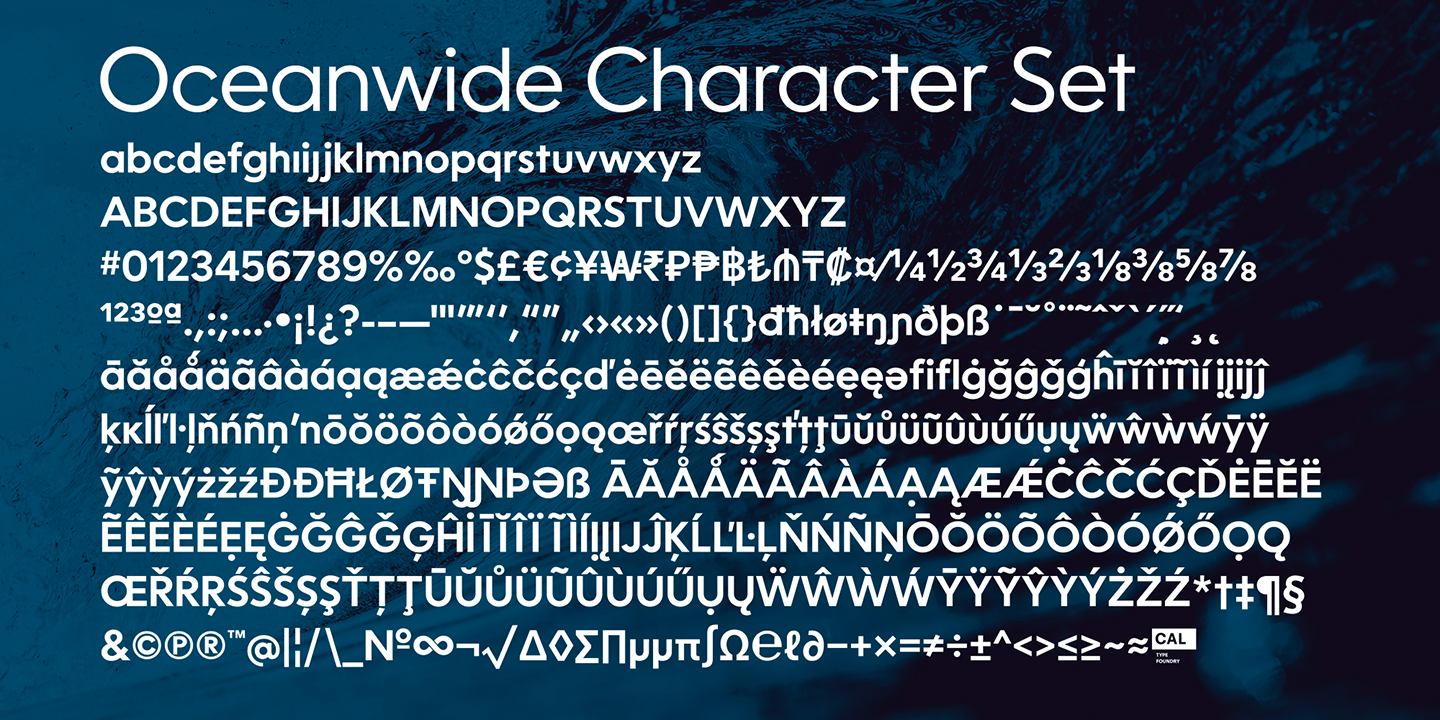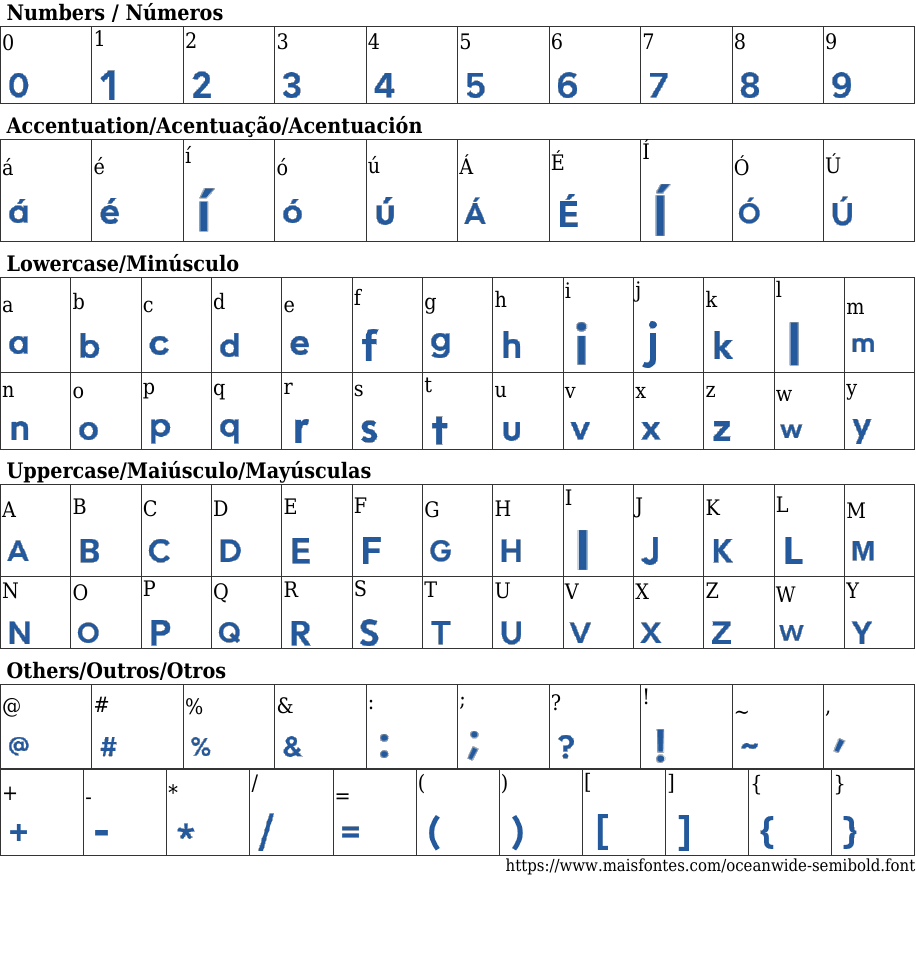
Oceanwide Pro Font Free Download - Designed with ultra clean lines, versatility in mind, and a host of pro font features, oceanwide pro wants to be your new favorite sans!. Whether it's for crafting captivating logos, designing striking packaging, or creating stunning digital interfaces, oceanwide pro font. This is a geometric sans serif font that comes in many weights and styles. Oceanwide pro is the geometric for today’s designers. Oceanwide pro sans serif font.
Designed with ultra clean lines, versatility in mind, and a host of pro font features, oceanwide pro wants to be your new favorite sans!. This is a geometric sans serif font that comes in many weights and styles. Whether it's for crafting captivating logos, designing striking packaging, or creating stunning digital interfaces, oceanwide pro font. Oceanwide pro sans serif font. Oceanwide pro is the geometric for today’s designers.
Designed with ultra clean lines, versatility in mind, and a host of pro font features, oceanwide pro wants to be your new favorite sans!. This is a geometric sans serif font that comes in many weights and styles. Oceanwide pro sans serif font. Oceanwide pro is the geometric for today’s designers. Whether it's for crafting captivating logos, designing striking packaging, or creating stunning digital interfaces, oceanwide pro font.
Designed with ultra clean lines, versatility in mind, and a host of pro font features, oceanwide pro wants to be your new favorite sans!. Oceanwide pro is the geometric for today’s designers. Oceanwide pro sans serif font. This is a geometric sans serif font that comes in many weights and styles. Whether it's for crafting captivating logos, designing striking packaging,.
Oceanwide Pro Font
Oceanwide pro is the geometric for today’s designers. This is a geometric sans serif font that comes in many weights and styles. Designed with ultra clean lines, versatility in mind, and a host of pro font features, oceanwide pro wants to be your new favorite sans!. Whether it's for crafting captivating logos, designing striking packaging, or creating stunning digital interfaces,.
Oceanwide pro is the geometric for today’s designers. This is a geometric sans serif font that comes in many weights and styles. Designed with ultra clean lines, versatility in mind, and a host of pro font features, oceanwide pro wants to be your new favorite sans!. Oceanwide pro sans serif font. Whether it's for crafting captivating logos, designing striking packaging,.
Oceanwide Pro The Clean Sans Font, The Ultimate Geometric Typeface
Whether it's for crafting captivating logos, designing striking packaging, or creating stunning digital interfaces, oceanwide pro font. Oceanwide pro sans serif font. This is a geometric sans serif font that comes in many weights and styles. Oceanwide pro is the geometric for today’s designers. Designed with ultra clean lines, versatility in mind, and a host of pro font features, oceanwide.
This is a geometric sans serif font that comes in many weights and styles. Whether it's for crafting captivating logos, designing striking packaging, or creating stunning digital interfaces, oceanwide pro font. Oceanwide pro sans serif font. Designed with ultra clean lines, versatility in mind, and a host of pro font features, oceanwide pro wants to be your new favorite sans!..
Oceanwide Pro Font Family by California Type Foundry Font Bros
Oceanwide pro sans serif font. Oceanwide pro is the geometric for today’s designers. This is a geometric sans serif font that comes in many weights and styles. Designed with ultra clean lines, versatility in mind, and a host of pro font features, oceanwide pro wants to be your new favorite sans!. Whether it's for crafting captivating logos, designing striking packaging,.
Oceanwide QLt Windows font free for Personal
Oceanwide pro sans serif font. Oceanwide pro is the geometric for today’s designers. Designed with ultra clean lines, versatility in mind, and a host of pro font features, oceanwide pro wants to be your new favorite sans!. Whether it's for crafting captivating logos, designing striking packaging, or creating stunning digital interfaces, oceanwide pro font. This is a geometric sans serif.
Oceanwide Pro Font FontPath
Oceanwide pro sans serif font. This is a geometric sans serif font that comes in many weights and styles. Oceanwide pro is the geometric for today’s designers. Whether it's for crafting captivating logos, designing striking packaging, or creating stunning digital interfaces, oceanwide pro font. Designed with ultra clean lines, versatility in mind, and a host of pro font features, oceanwide.
Whether it's for crafting captivating logos, designing striking packaging, or creating stunning digital interfaces, oceanwide pro font. This is a geometric sans serif font that comes in many weights and styles. Oceanwide pro is the geometric for today’s designers. Designed with ultra clean lines, versatility in mind, and a host of pro font features, oceanwide pro wants to be your.
Whether It's For Crafting Captivating Logos, Designing Striking Packaging, Or Creating Stunning Digital Interfaces, Oceanwide Pro Font.
This is a geometric sans serif font that comes in many weights and styles. Oceanwide pro sans serif font. Designed with ultra clean lines, versatility in mind, and a host of pro font features, oceanwide pro wants to be your new favorite sans!. Oceanwide pro is the geometric for today’s designers.